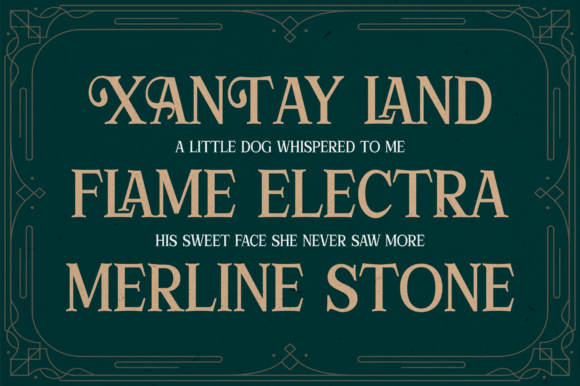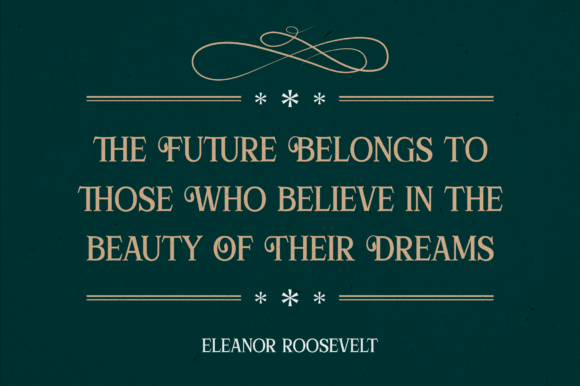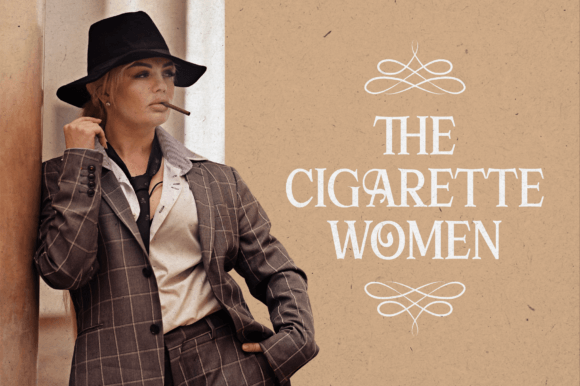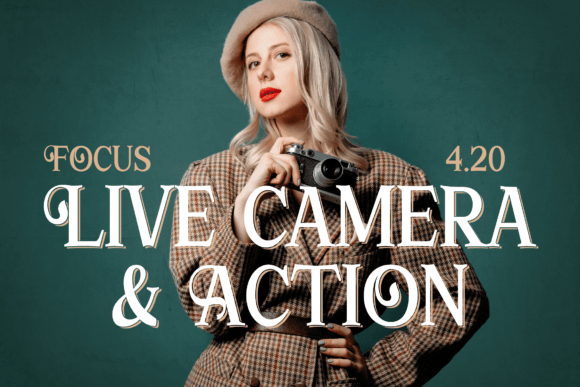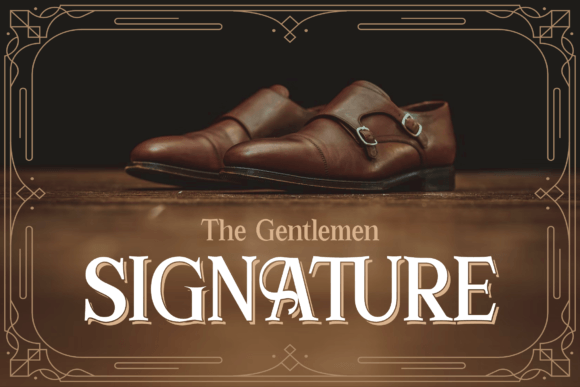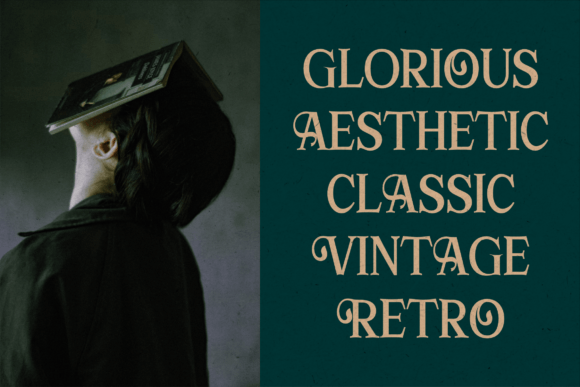
Introduction to Ortusela Font
Have you ever stared at a blank canvas, waiting for the perfect font to bring your creative project to life? For designers, this moment is all too familiar. It’s the moment when the right typography can make or break the aesthetic of your design. And that’s exactly where the Ortusela Font comes in – a modern and stylish serif font that’s sure to elevate your design game.
With its unique appearance and high-quality design, the Ortusela Font is the perfect addition to any creative project. Whether you’re designing a logo, fashion brand, magazine, or apparel, this font is sure to add a touch of elegance and luxury. And the best part? It’s available for free download, making it an invaluable design resource for designers of all levels.
Key Features of Ortusela Font
- High-quality design: Ortusela Font is a unique and creative design resource perfect for any project, offering a professional and elegant look.
- High-resolution design: Ortusela Font is designed at a high resolution, making it perfect for use in large-scale designs, such as billboards and posters.
- Unique characteristics: This font features a unique and creative style, with intricate details and flourishes that set it apart from other fonts.
- Perfect for creative projects: Ortusela Font is ideal for use in creative projects, such as graphic design, branding, and advertising.
Honest Review: Ortusela Font
I recently came across the Ortusela Font while searching for a unique design resource to elevate a creative project. As a designer, I was excited to dive in and see what this font had to offer.
The Ortusela Font is a high-quality font that offers a range of styles and weights, making it a great addition to any design project. ✨ One of the standout features of this font is its transparent background, which allows for seamless integration with any background image or color.
Here are some of the key features that make the Ortusela Font a valuable design resource:
- High-quality design with a range of styles and weights
- Perfect for creative projects that require a unique and eye-catching font
One potential limitation of the Ortusela Font is that it may not be suitable for formal or professional projects where a more traditional font is required. ⚠️ Additionally, the font may not be as versatile as some other fonts on the market.
Overall, I was impressed with the Ortusela Font and would recommend it to designers looking for a unique and high-quality font for their creative projects.
Tips for Getting the Most Out of Ortusela Font
The Ortusela Font is ideal for creative projects such as logos, business cards, brochures, and social media graphics. It’s also perfect for designers who want to create a free download design resource for their clients. Whether you’re a professional designer or a hobbyist, the Ortusela Font is a great addition to your design toolkit.